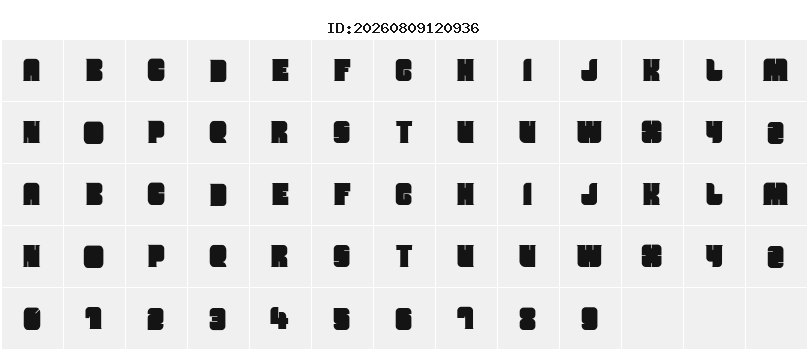
• Font Name: Peep
• Designer: Michael Tanner & Jacob King
About Peep.ttf
Peep.ttf is a modern, elegant sans-serif font designed for ultimate readability and visual harmony. Perfect for branding, headlines, web design, and print materials.